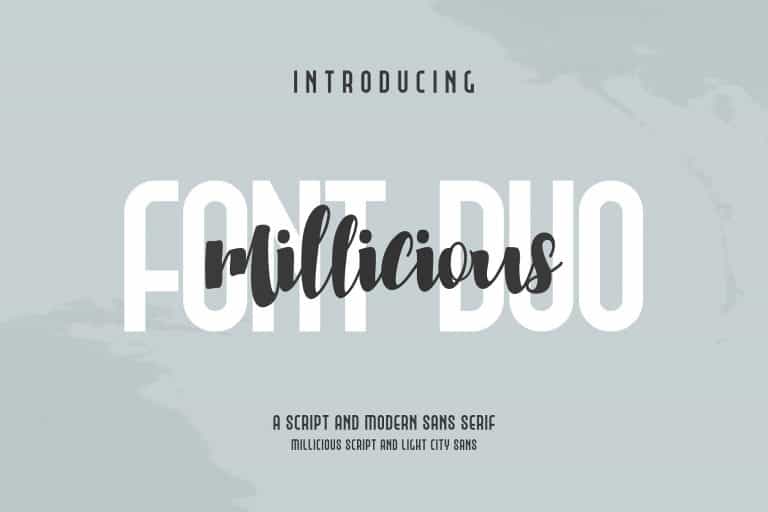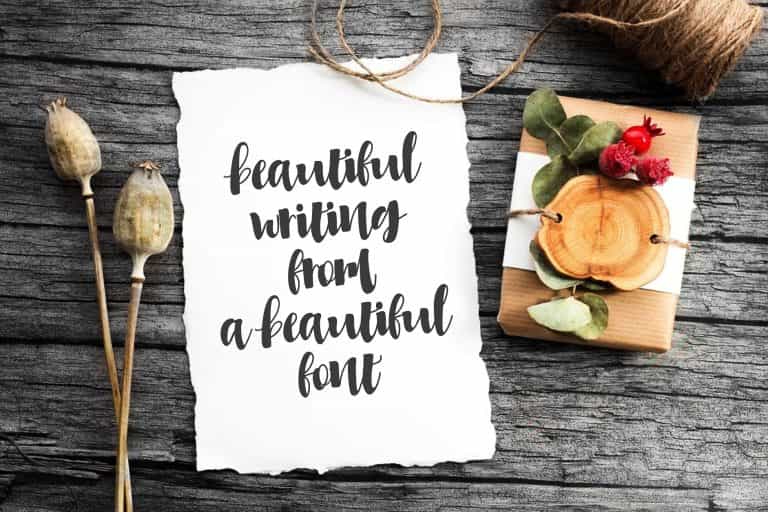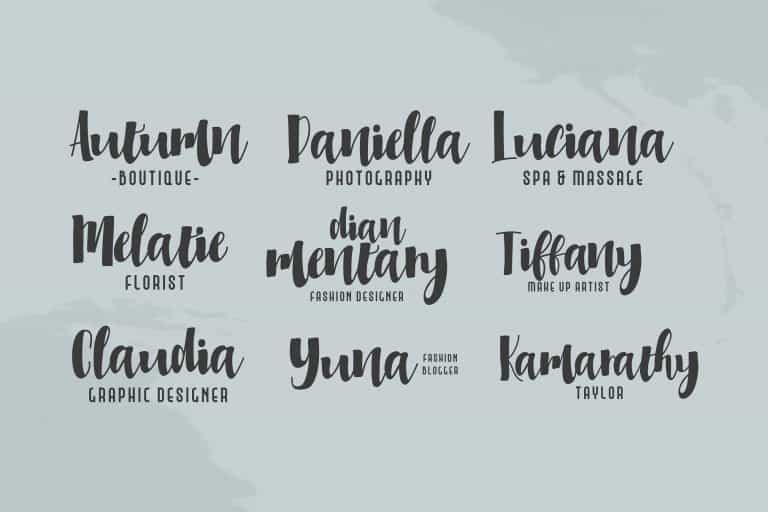
Discover Millicious Brush Font, part of the Brush collection—a versatile and unique font perfect for adding a personal touch to your projects. Download it for free and enjoy crafting designs with style, from invitations to social media posts. This font is available exclusively for personal use, giving you the freedom to create without limits. Unlock your creativity with Millicious Brush Font today!
Introducing Millicious Brush Font. This font is composed of the beautiful script handwriting fonts, and one is a modern sans serif font. The font is available in OTF and TTF formats that can be used on Windows OS, Linux, and Mac.